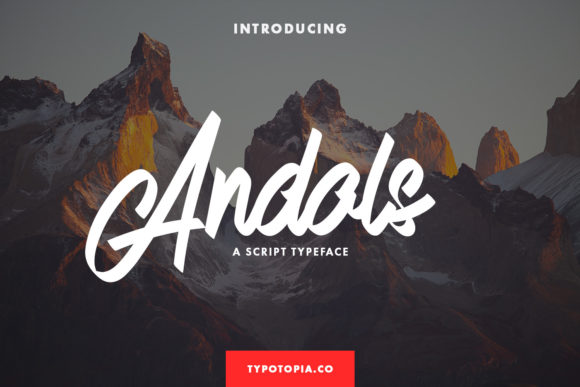
The Designer’s Delight: Andals Font
I’ll never forget the struggle I faced while working on a branding project for a trendy boutique. My client wanted a font that was both elegant and approachable, but I was stuck in a creative rut. That’s when I stumbled upon Andals Font, a cursive, chic, and distinctly lettered script font that instantly elevated my design game. In this article, I’ll share my experience with Andals, its features, and how to make the most of it in various design platforms.
What I Love About Andals Font ✨
- 💫 Unique, hand-painted feel that adds a touch of sophistication to any design
- ✅ Easy to read, even in smaller sizes, making it perfect for body text or captions
- 🎨 Highly versatile, suitable for a wide range of design projects, from branding to packaging
- 🌈 Beautifully crafted, with a distinct character that sets it apart from other script fonts
- ⚠️ Some users might find the font a bit too ornate for very formal or traditional designs
- ⚠️ Limited availability of certain characters or glyphs, which might require additional editing
- Experiment with OpenType features, such as stylistic alternates, to add more personality to your text
- Explore the OpenType panel to access glyphs, stylistic alternates, and other advanced features
The Story Behind Andals Font
Andals Font was inspired by the works of a fictional designer, Emma Taylor, who sought to create a font that captured the essence of hand-painted signs and elegant calligraphy. With a passion for beautiful lettering and a keen eye for detail, Emma poured her heart into crafting a font that would bring a touch of sophistication to any design.
| Font Name | Andals Font |
| Author | typotopia |
| What makes Andals Font unique? | Andals Font features a distinctive, hand-painted feel with a mix of elegant and playful strokes. |
| Is Andals Font suitable for body text? | Yes, Andals Font is legible even in smaller sizes, making it suitable for body text or captions. |